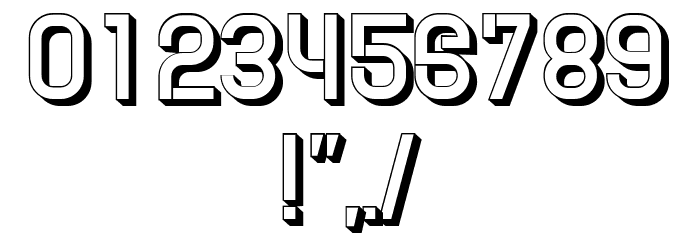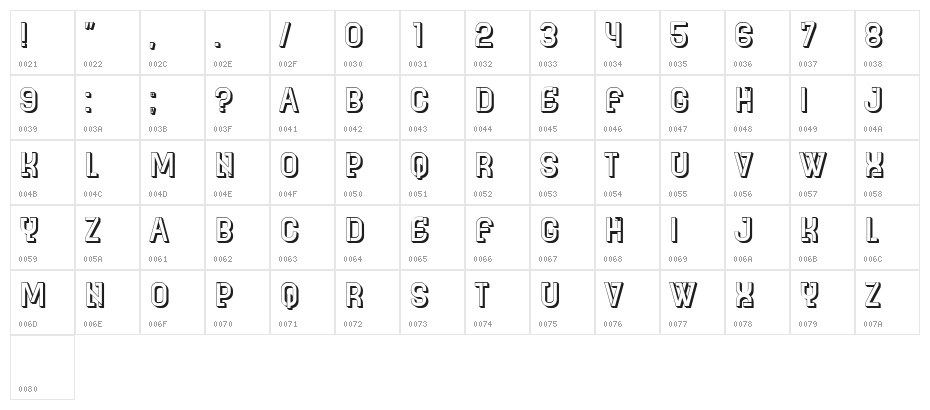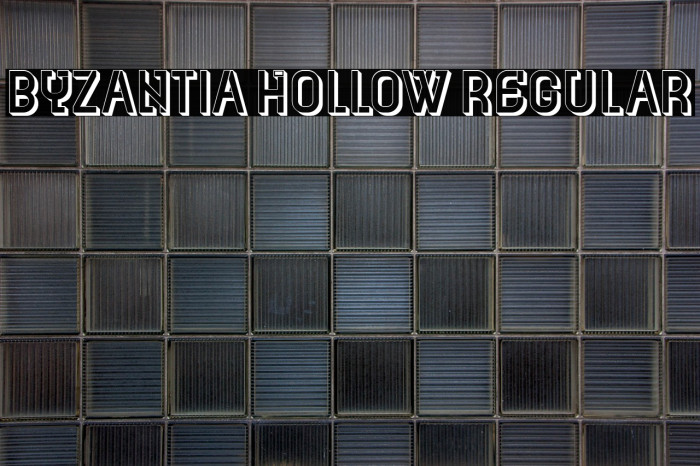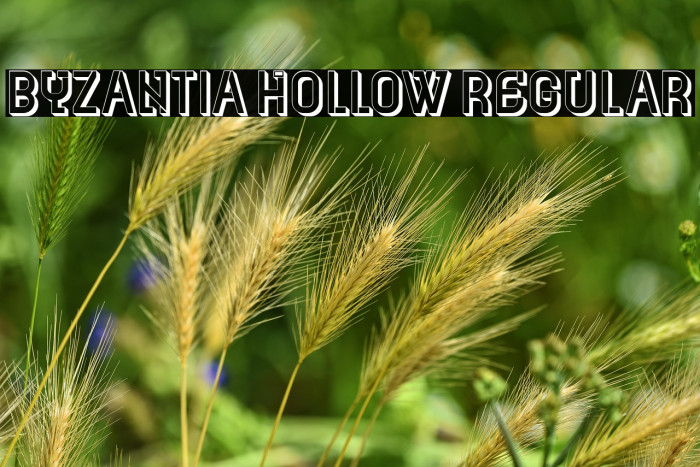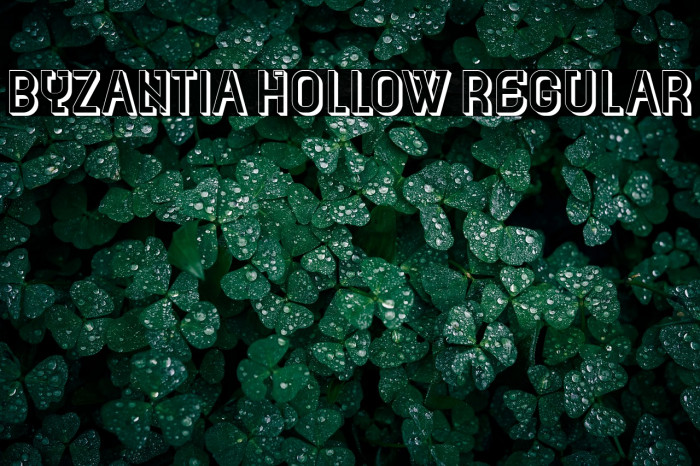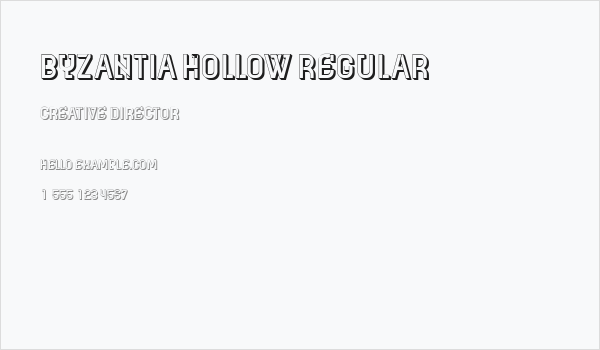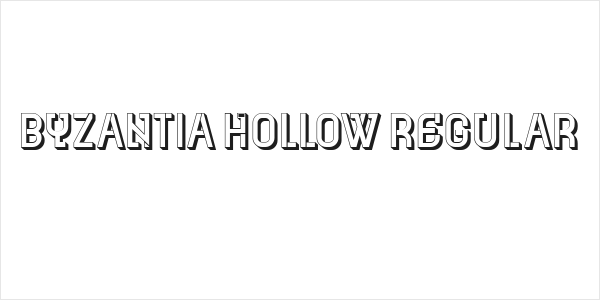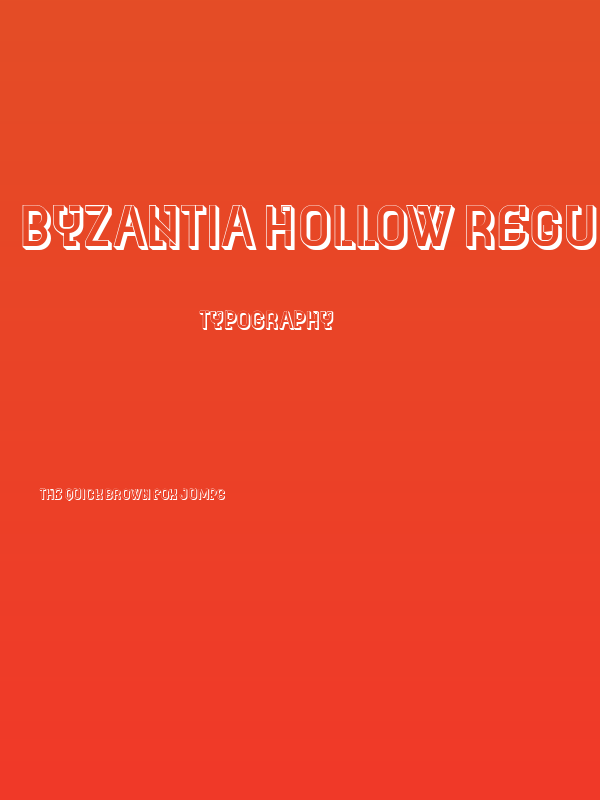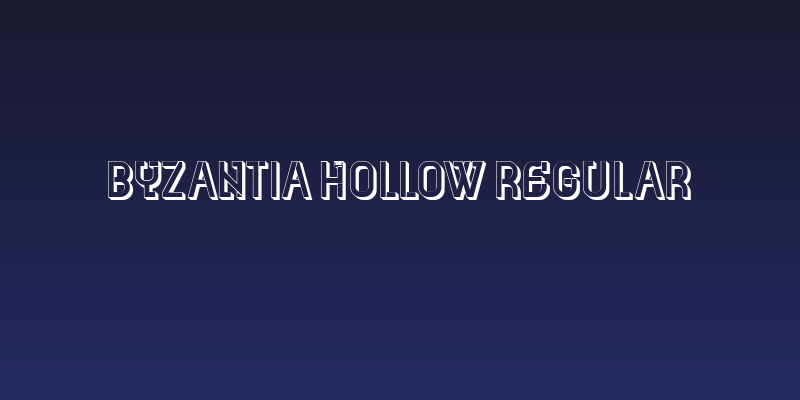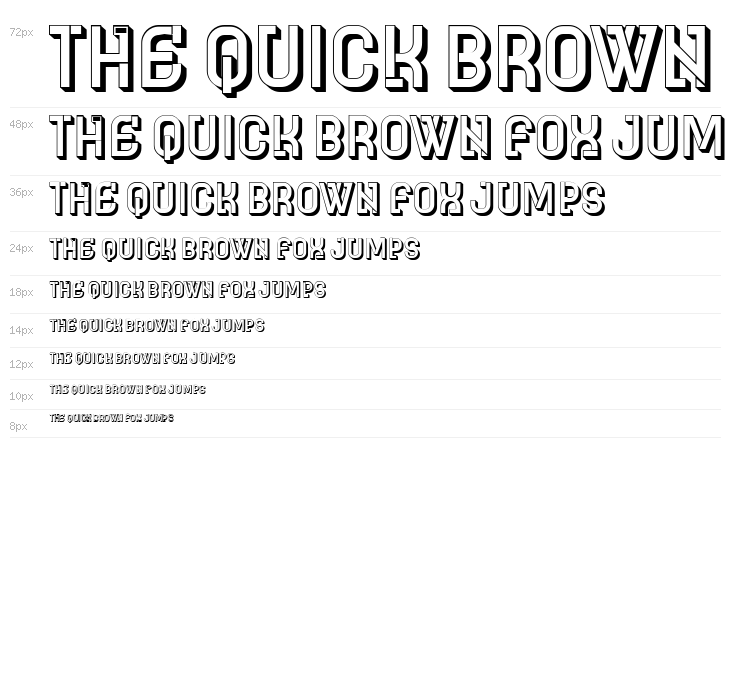
Byzantia Hollow Regular Font
Byzantia Hollow Regular Description
This font features a bold, hollow design with a modern and decorative style. The characters are outlined, giving them a three-dimensional appearance that stands out on the page. The uppercase and lowercase letters maintain a consistent width, providing a uniform look across the text. The numbers and special characters follow the same design principles, ensuring a cohesive appearance. The font's unique style makes it suitable for eye-catching headlines and titles, where a strong visual impact is desired. Its hollow nature allows for creative use of background colors and textures to show through the characters.